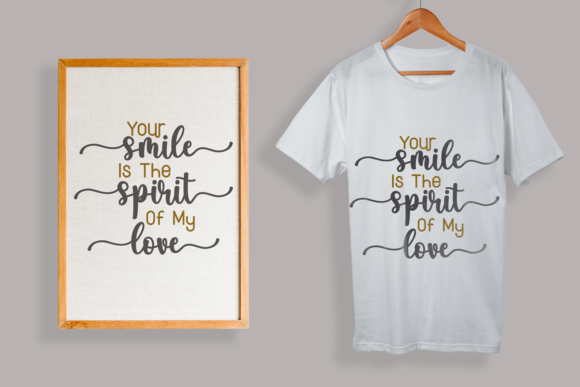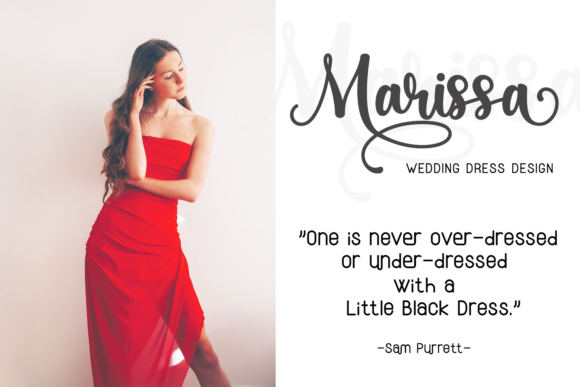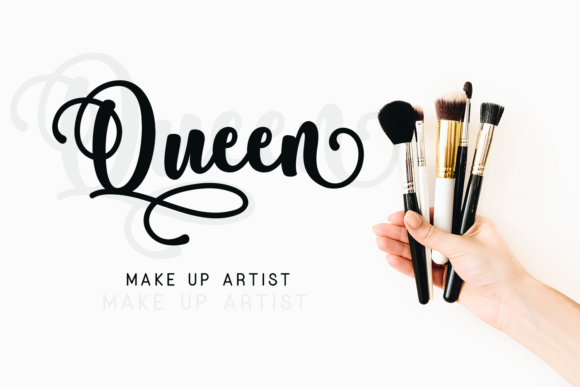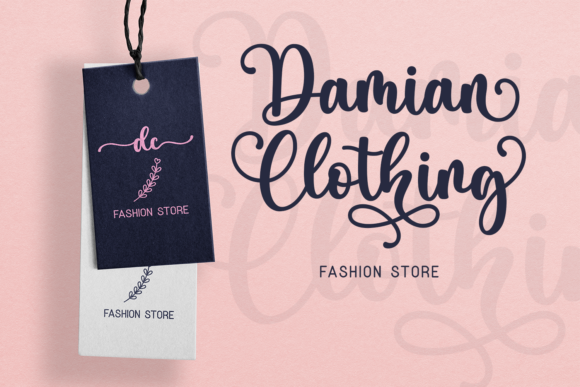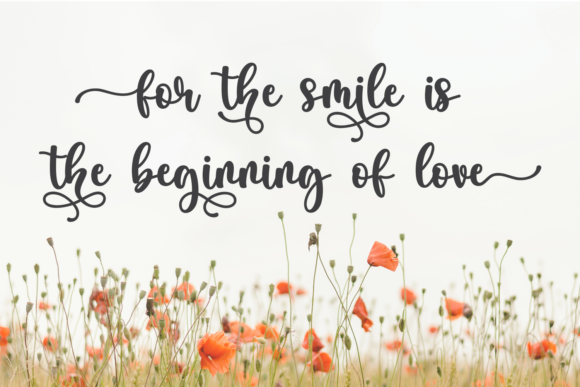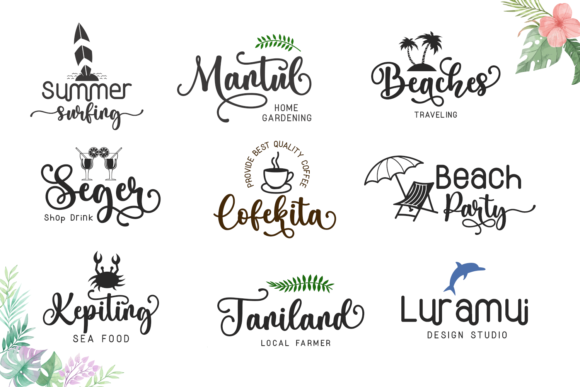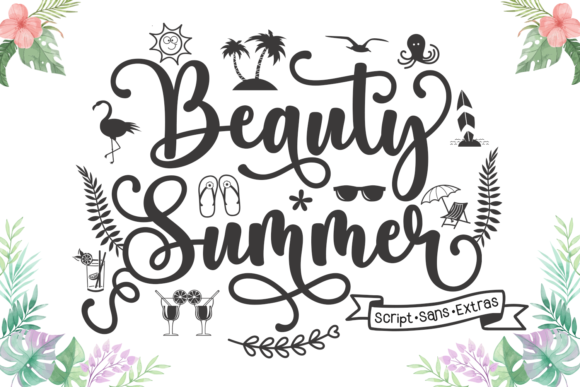
Introducing Beauty Summer Font: Elevate Your Designs with Elegance
As the summer season arrives, it’s the perfect time to infuse your designs with a fresh and elegant touch. Beauty Summer Font is a stunning trio font that combines sans serif, dingbats, and script fonts, making it incredibly versatile for a wide range of design projects. In this article, we’ll dive into the features and benefits of Beauty Summer Font, and explore how it can elevate your designs to new heights.
A Triplet of Fonts for Endless Possibilities
Beauty Summer Font is not just a single font, but a spectacular trio that includes sans serif, dingbats, and script fonts. This unique combination allows you to experiment with different styles and create visually appealing designs that cater to various tastes and preferences. Whether you’re working on a branding project, crafting a social media graphic, or designing a website, Beauty Summer Font has got you covered.
Unleash Your Creativity with PUA Encoding
One of the standout features of Beauty Summer Font is its PUA (Private Use Area) encoding. This means that you can access all the glyphs and swashes with ease, giving you unparalleled creative control over your designs. With PUA encoding, you can effortlessly swap out characters, add decorative elements, and fine-tune your typography to perfection.
Elegance and Versatility for Various Design Projects
Beauty Summer Font is designed to be incredibly versatile, making it suitable for a wide pool of designs. Whether you’re working on:
- Branding and logos: Create stunning wordmarks, logotypes, and business cards that exude elegance and sophistication.
- Social media graphics: Craft eye-catching posts, stories, and ads that grab attention and drive engagement.
- Web design: Develop beautiful websites that showcase your brand’s personality and style.
- Print materials: Design brochures, flyers, and posters that leave a lasting impression.
- Crafting and DIY projects: Add a touch of elegance to your handmade creations, such as cards, scrapbook pages, and journal entries.
Why Choose Beauty Summer Font?
With so many fonts available, why should you choose Beauty Summer Font? Here are just a few compelling reasons:
- Unique and stylish: Beauty Summer Font offers a fresh and distinctive look that will set your designs apart from the crowd.
- Highly versatile: The trio font combination and PUA encoding make it easy to experiment with different styles and creative ideas.
- Ease of use: With PUA encoding, you can access all the glyphs and swashes with ease, saving you time and effort.
- Perfect for designers and crafters: Whether you’re a professional designer or a crafting enthusiast, Beauty Summer Font is an excellent addition to your font library.
In conclusion, Beauty Summer Font is an exceptional trio font that offers elegance, versatility, and creative freedom. With its PUA encoding and unique combination of sans serif, dingbats, and script fonts, it’s perfect for a wide range of design projects. Whether you’re a designer, crafter, or DIY enthusiast, Beauty Summer Font is sure to elevate your designs to new heights. So why wait? Get ready to infuse your designs with a touch of summer elegance and make your mark with Beauty Summer Font!